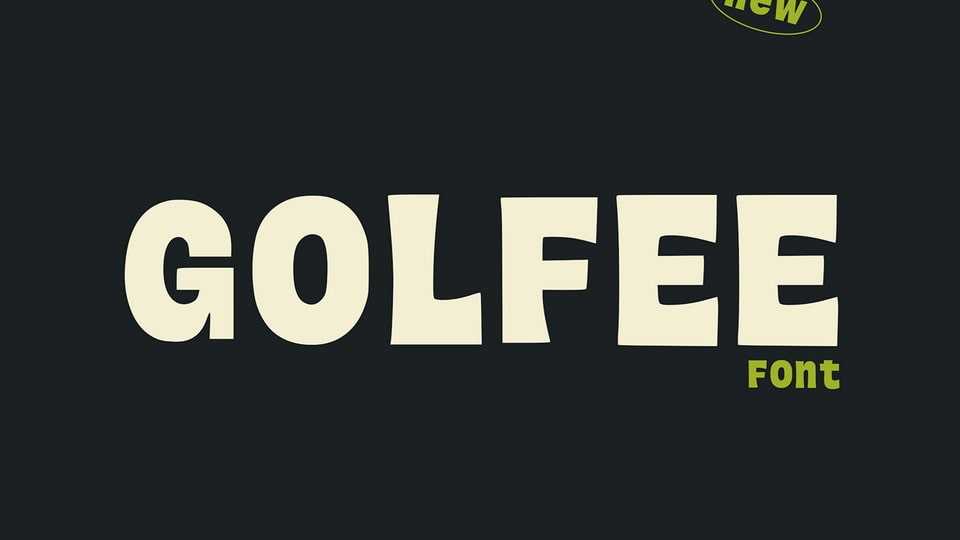
Download Golfee font, a bold and quirky display typeface crafted to bring a fun and energetic vibe to your creative projects with its chunky letterforms and slightly irregular shapes.